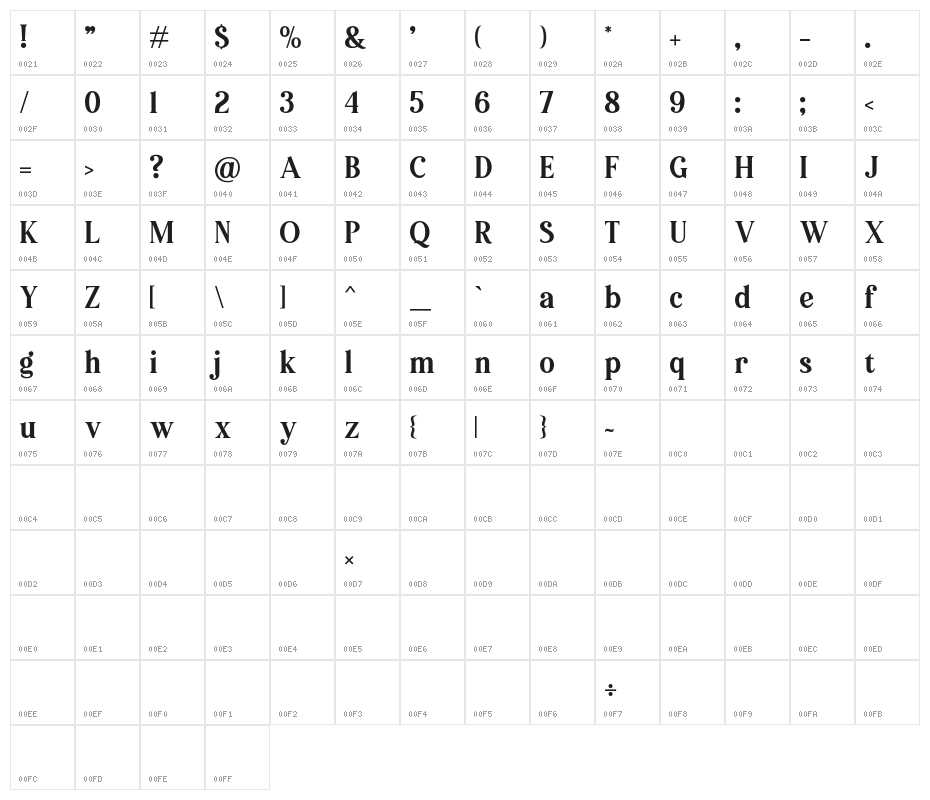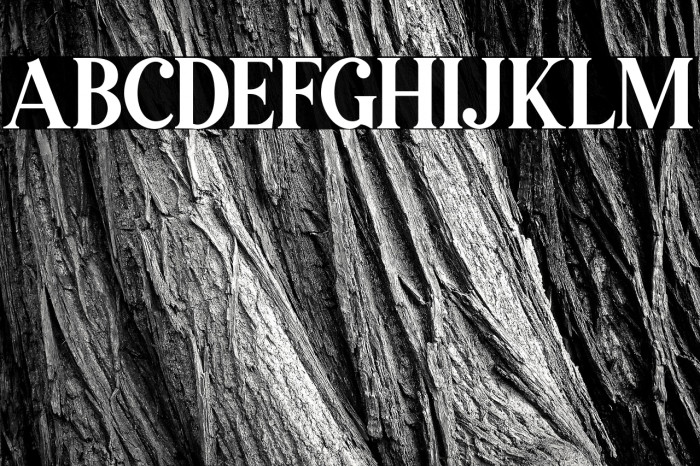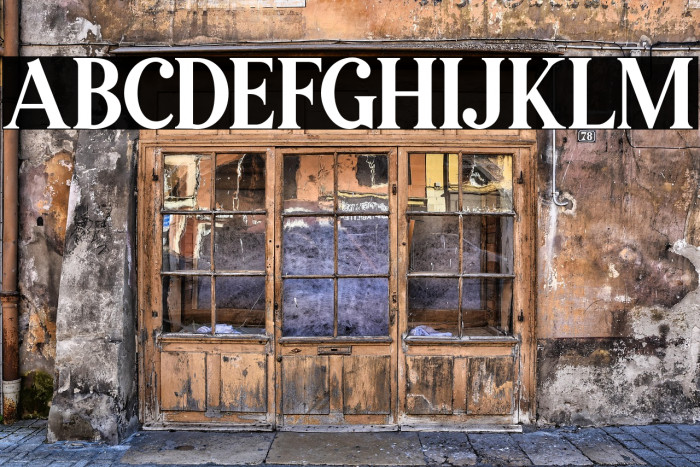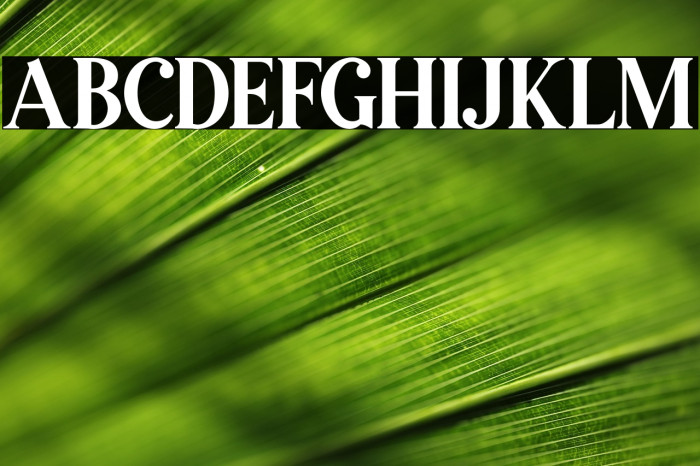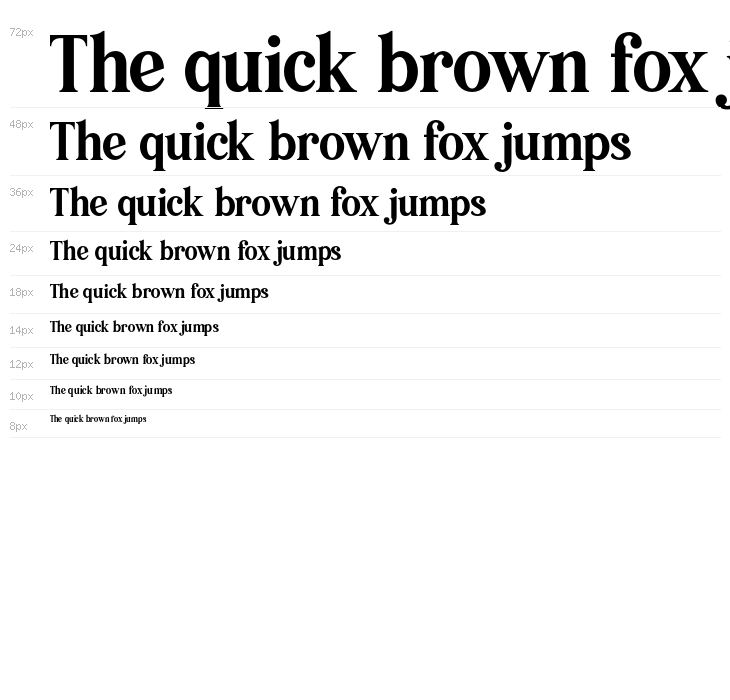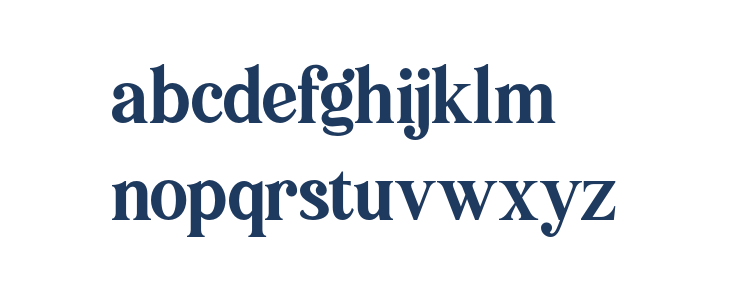
Pioggia Font
Pioggia Description
This font features a classic serif style with strong, bold strokes and high contrast between thick and thin lines. The serifs are pronounced, giving the typeface a traditional and authoritative appearance. The uppercase letters are tall and commanding, while the lowercase letters maintain a consistent and harmonious flow. The numerals are clear and legible, matching the overall boldness of the font. Special characters are well-integrated, maintaining the font's cohesive style. This typeface exudes a sense of elegance and sophistication, suitable for formal and impactful designs.
| Use Case | Headlines, Logos, Editorial |
| Proposed Projects | Ideal for book covers, editorial headlines, branding materials, and formal invitations. |